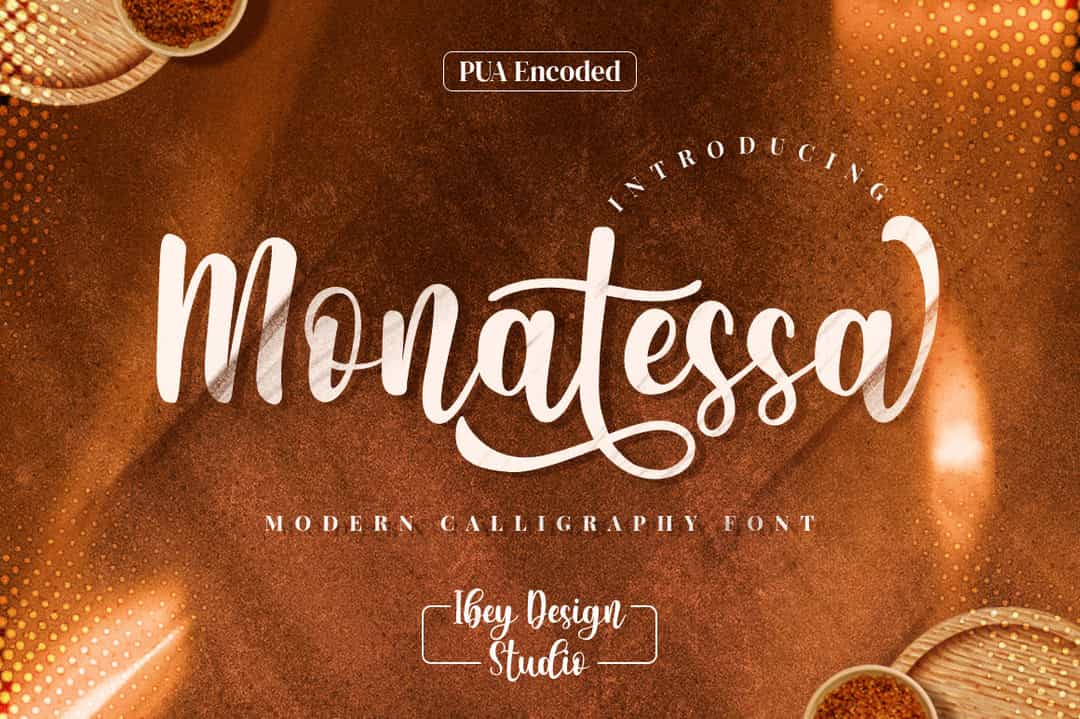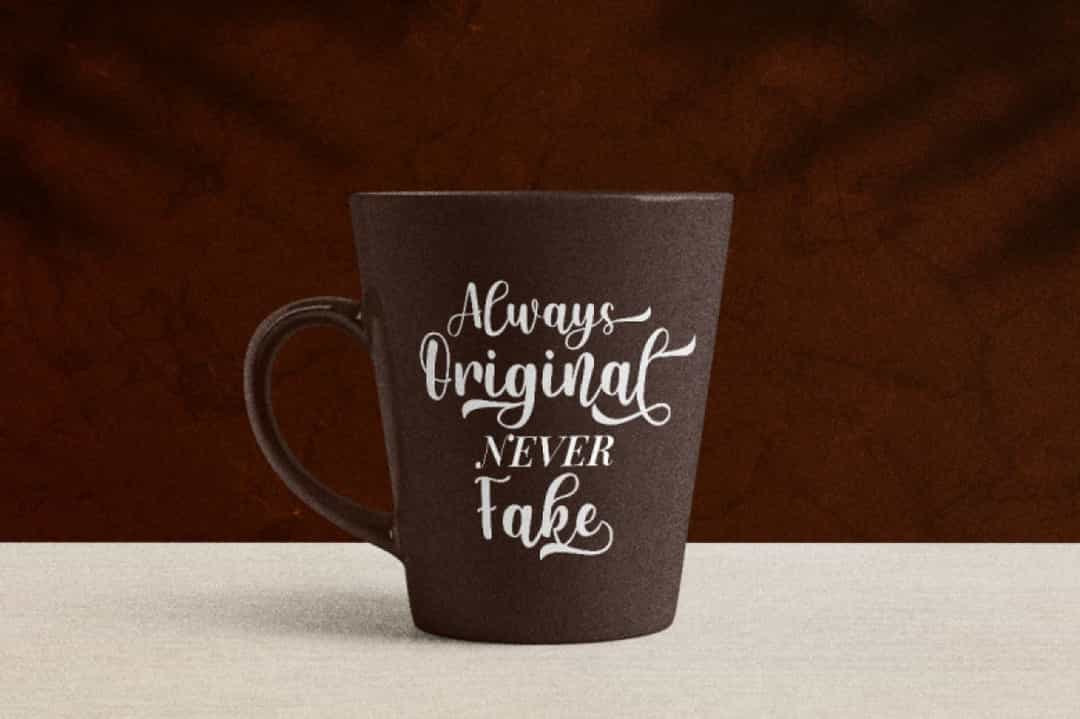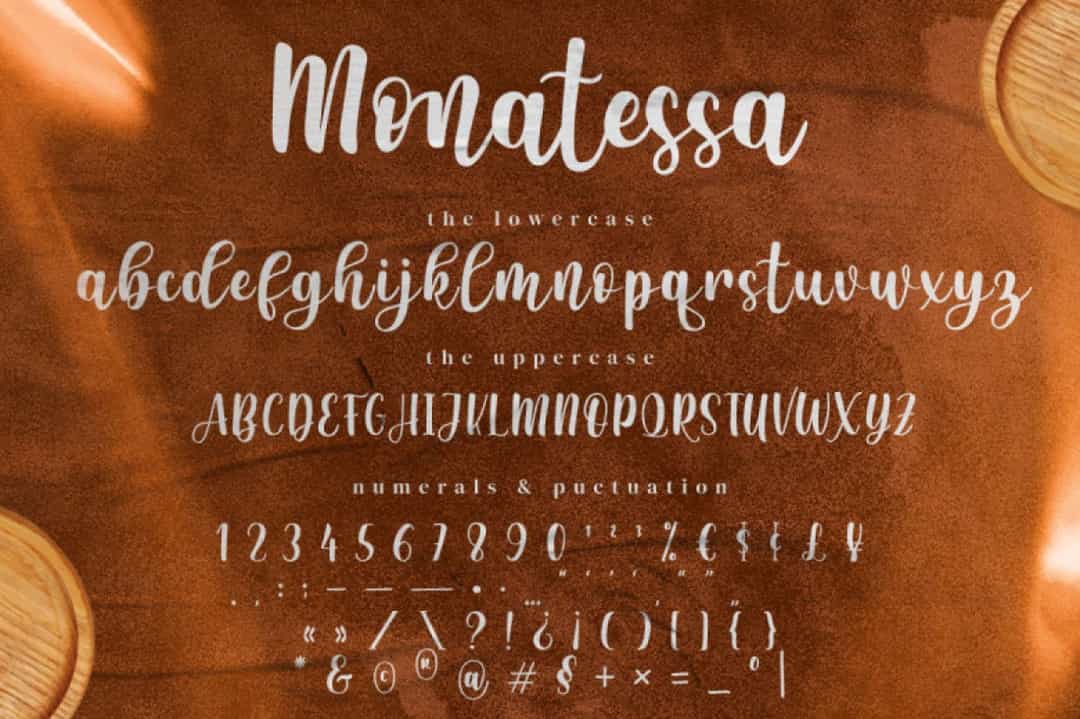
Monatessa is an adorable, delicate calligraphy script typeface for calligraphers. With its sweet yet cheerful script style, Monatessa makes an excellent addition to wedding invitations or cards with romantic or personal themes, as it provides instant access to all its characters and swashes! Additionally, PUA-encoding means that users have easy access to all characters and swashes!